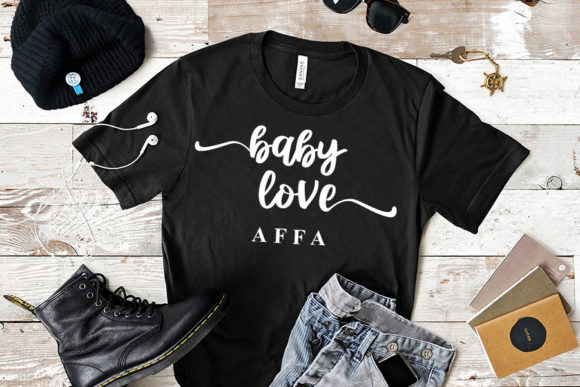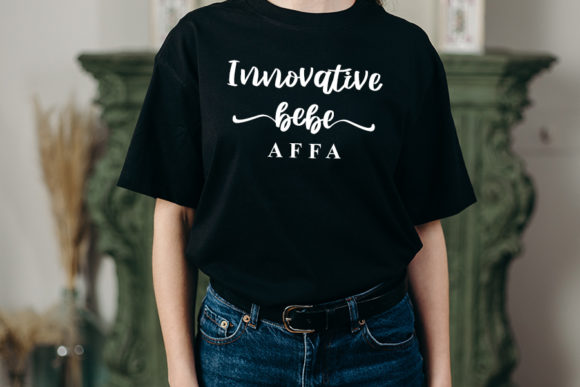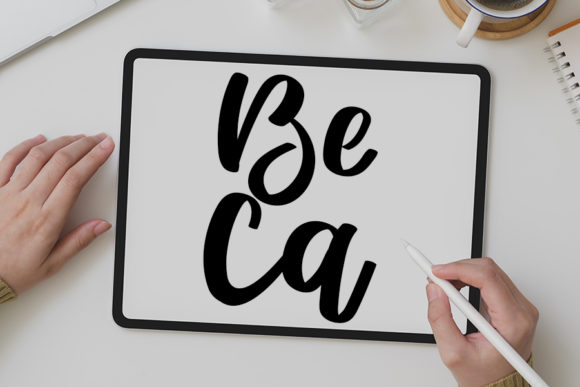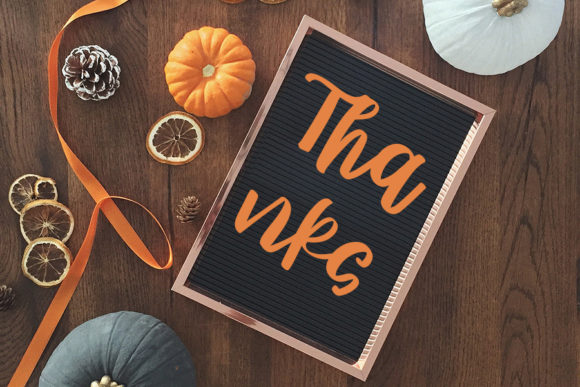
The Sweetest Font for Your Little Ones
As a designer, have you ever found yourself in a creative moment where you’re brainstorming ideas for a nursery-themed project, or perhaps a birthday card for a little one? You’re browsing through font libraries, searching for the perfect match to capture the innocence and charm of childhood. That’s when you stumble upon it – Baby Cute Font.
| 👤 Author | NYA Letter |
This delicate and sweet handwritten font is the perfect choice for any project that requires a touch of whimsy and warmth. With its endearing features, Baby Cute Font is not only a great choice for personal projects but also a valuable asset for designers looking to create engaging and emotive designs. Whether you’re working on a children’s book, a nursery decor project, or a heartfelt card, Baby Cute Font is sure to bring a smile to your face and your audience’s hearts.
Baby Cute Font Key Features
- Font Family: Baby Cute Font
- Unique Characteristics: Hand-drawn, cursive, and playful design with rounded edges and subtle texture, perfect for creating a baby or child-related design
- Font Style: Includes regular and bold font styles
Baby Cute Font Review
Overall, I think the Baby Cute Font is a fun and playful addition to any design project. It’s perfect for creating a whimsical or child-friendly vibe. ✨
- Unique and quirky character set: The font has a lot of personality and can add a touch of whimsy to any design.
- Highly customizable: The font can be easily customized to fit the tone and style of your project.
- Cute and child-friendly: The font is perfect for projects that need a lighthearted and playful feel.
However, I do have a few concerns about the font’s limitations. ⚠️
- Limited use in professional settings: The font’s playful nature may not be suitable for all professional or formal projects.
- Lack of consistency: The font’s quirky character set can sometimes feel inconsistent or uneven.
- May not translate well to smaller sizes: The font’s cute and playful nature can sometimes get lost when used in smaller font sizes.
Overall, I think the Baby Cute Font is a great addition to any designer’s toolkit. While it may not be suitable for every project, it’s perfect for creating a whimsical or child-friendly vibe. With a little creativity and customization, it can add a lot of personality to your designs.
For best results, use Baby Cute Font for short text passages or titles.
Combine Baby Cute Font with other playful fonts to add a whimsical touch to your designs.
Baby Cute Font is ideal for:
Children’s book illustrations
Infant product branding
Wedding invitations and decorations
Party decorations and signage